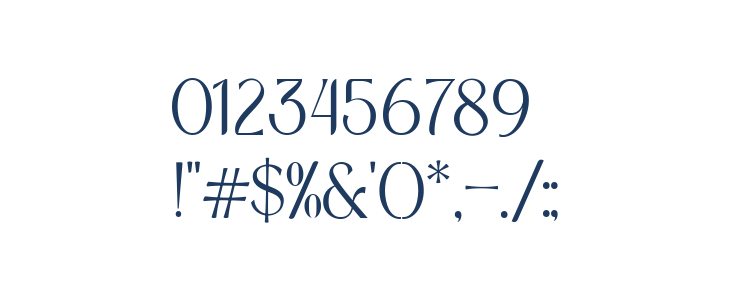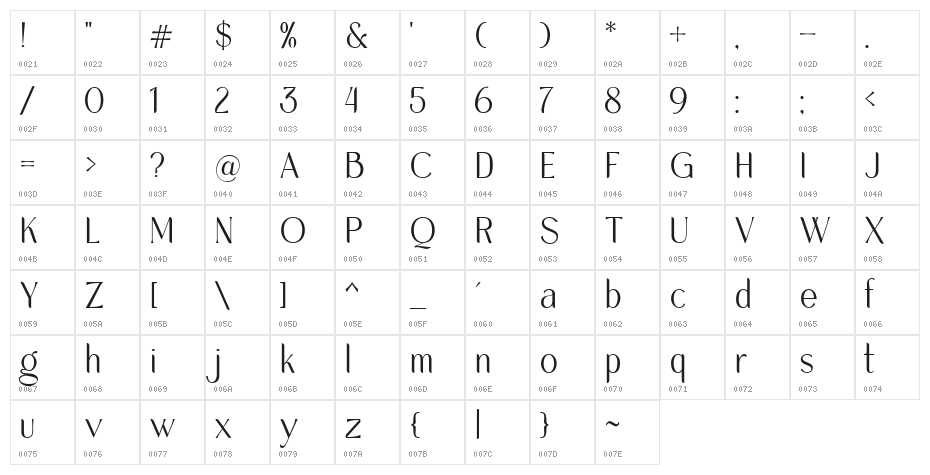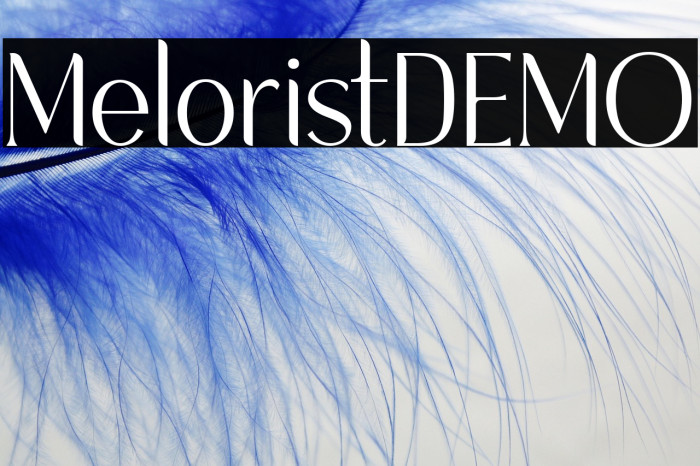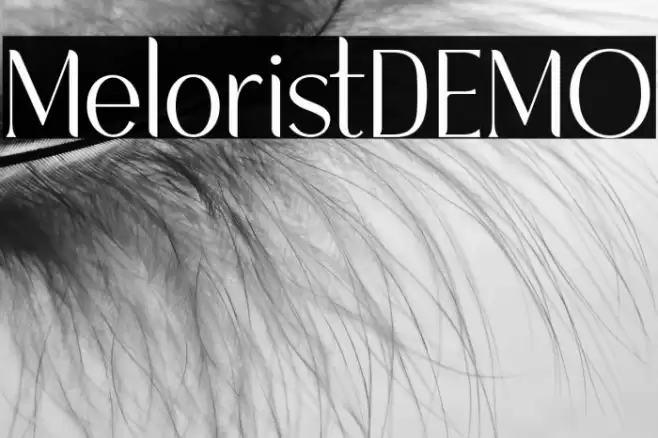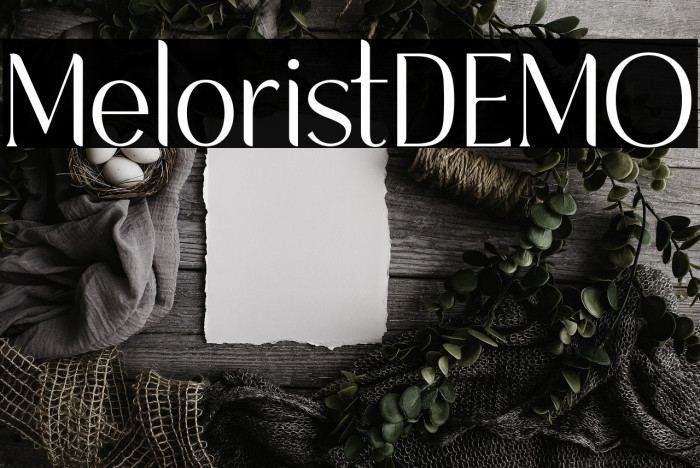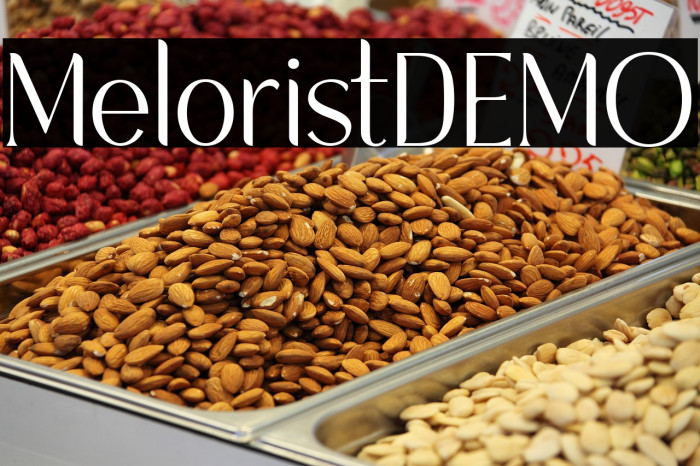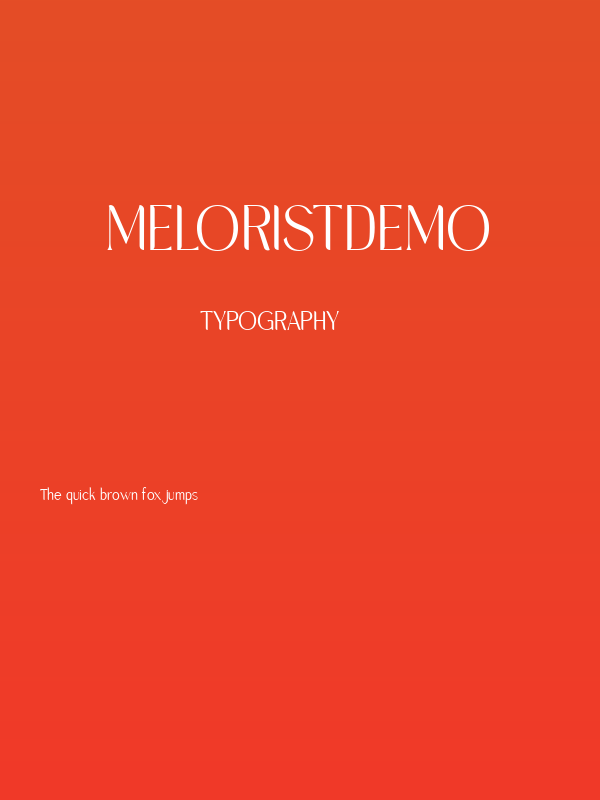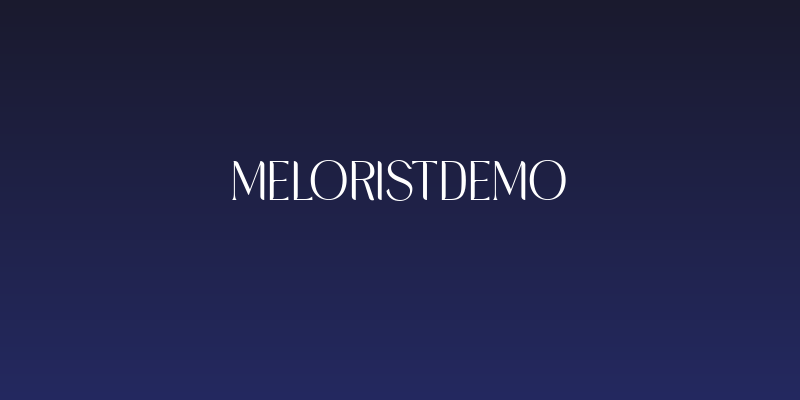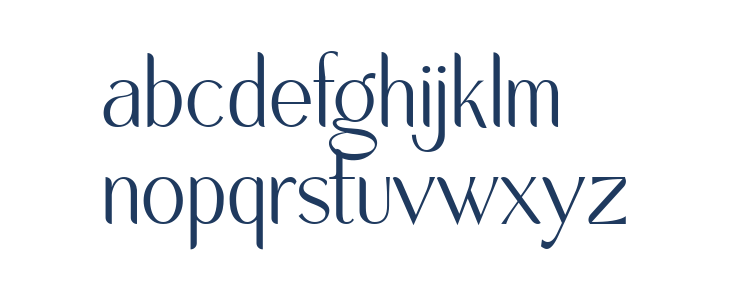
MeloristDEMO Font
MeloristDEMO Description
This font features a modern and elegant design with a high contrast between thick and thin strokes, giving it a sophisticated and stylish appearance. The uppercase letters are tall and slender, while the lowercase letters maintain a consistent flow with rounded edges. The numerals are clear and distinct, complementing the overall aesthetic. Special characters are uniquely designed, adding a touch of flair. The font's clean lines and balanced proportions make it versatile for various design applications.
| Use Case | Headlines, Logos, Editorial design |
| Proposed Projects | Ideal for branding, editorial design, luxury packaging, and fashion-related projects. |